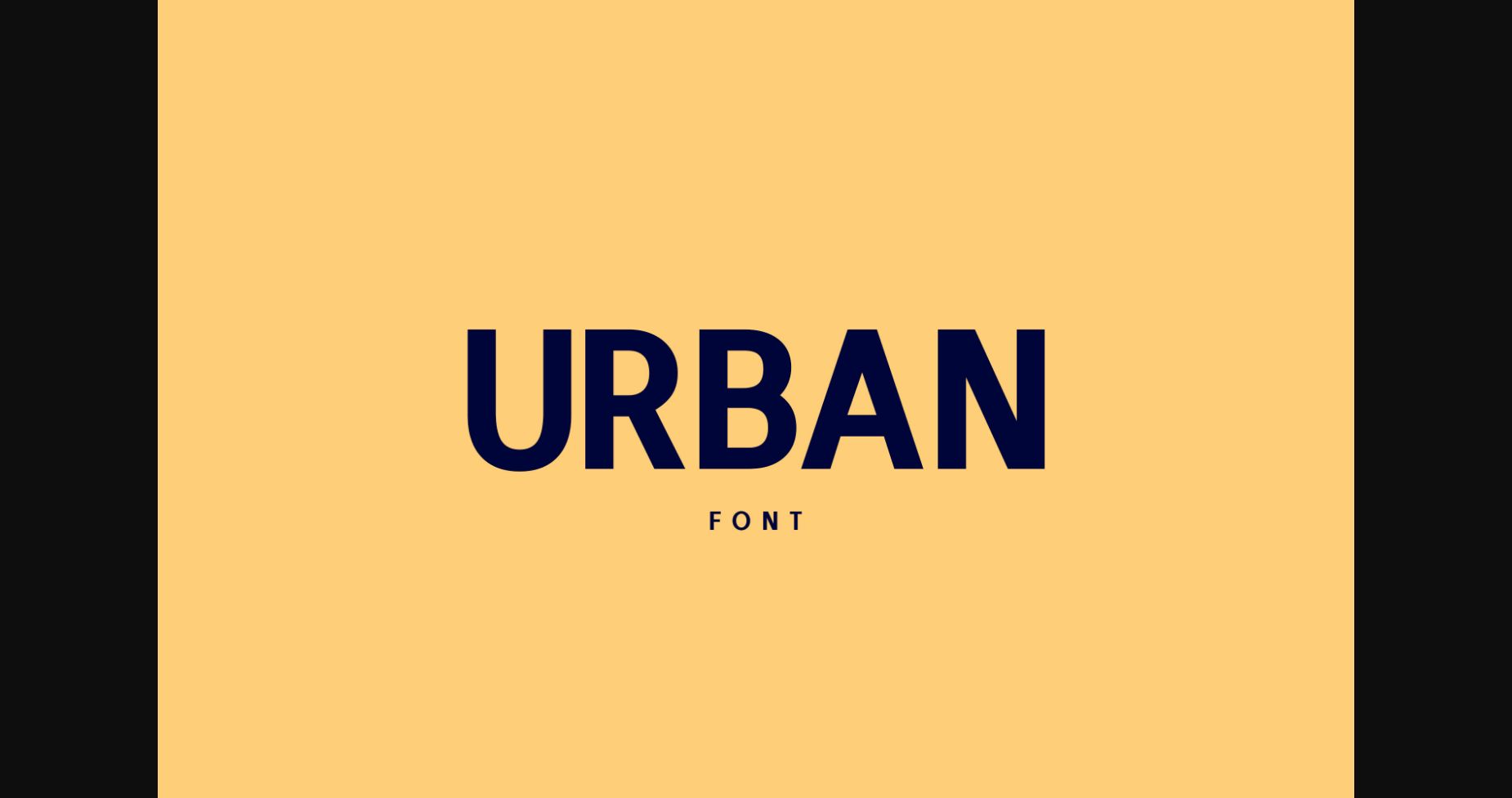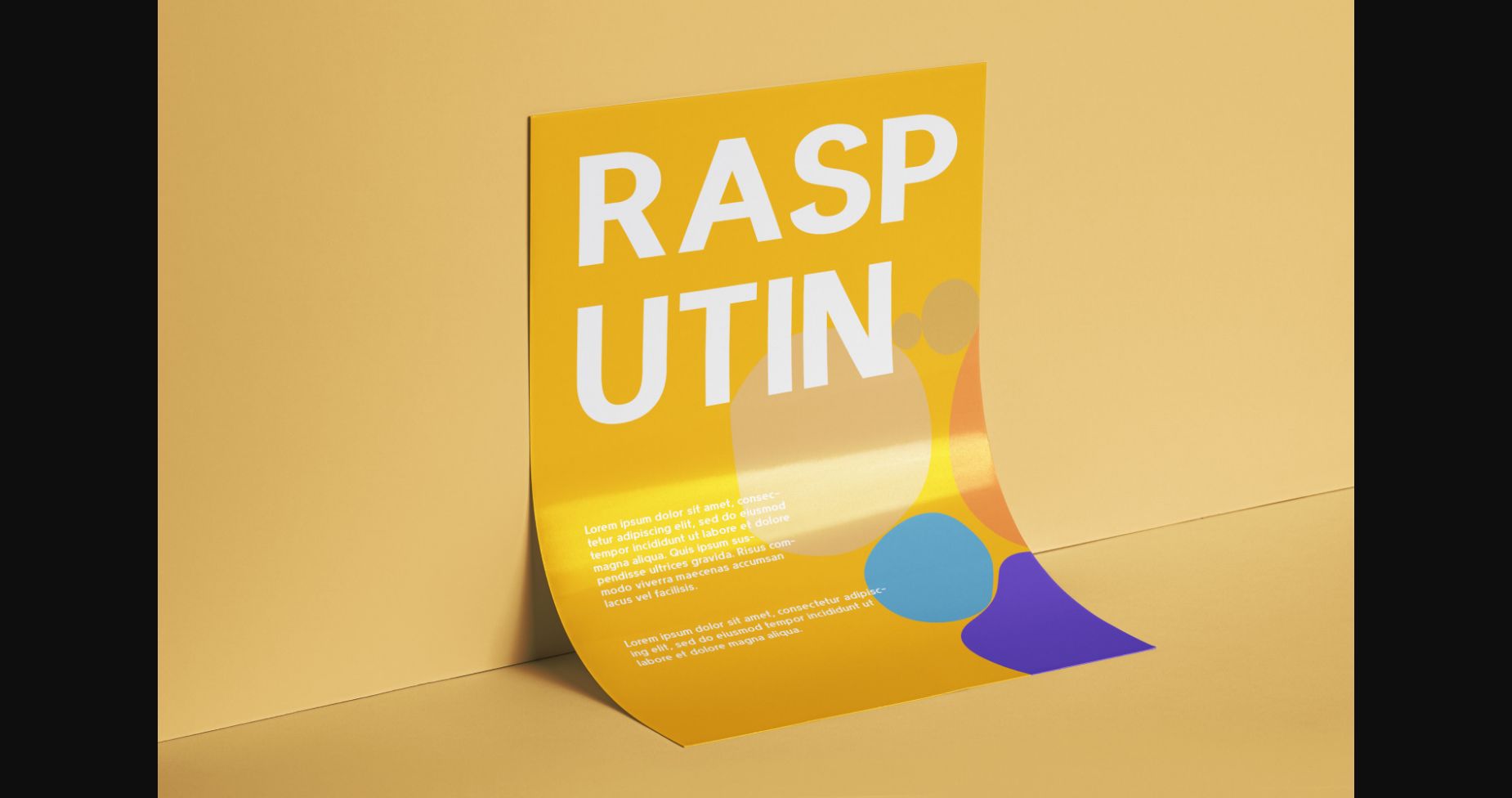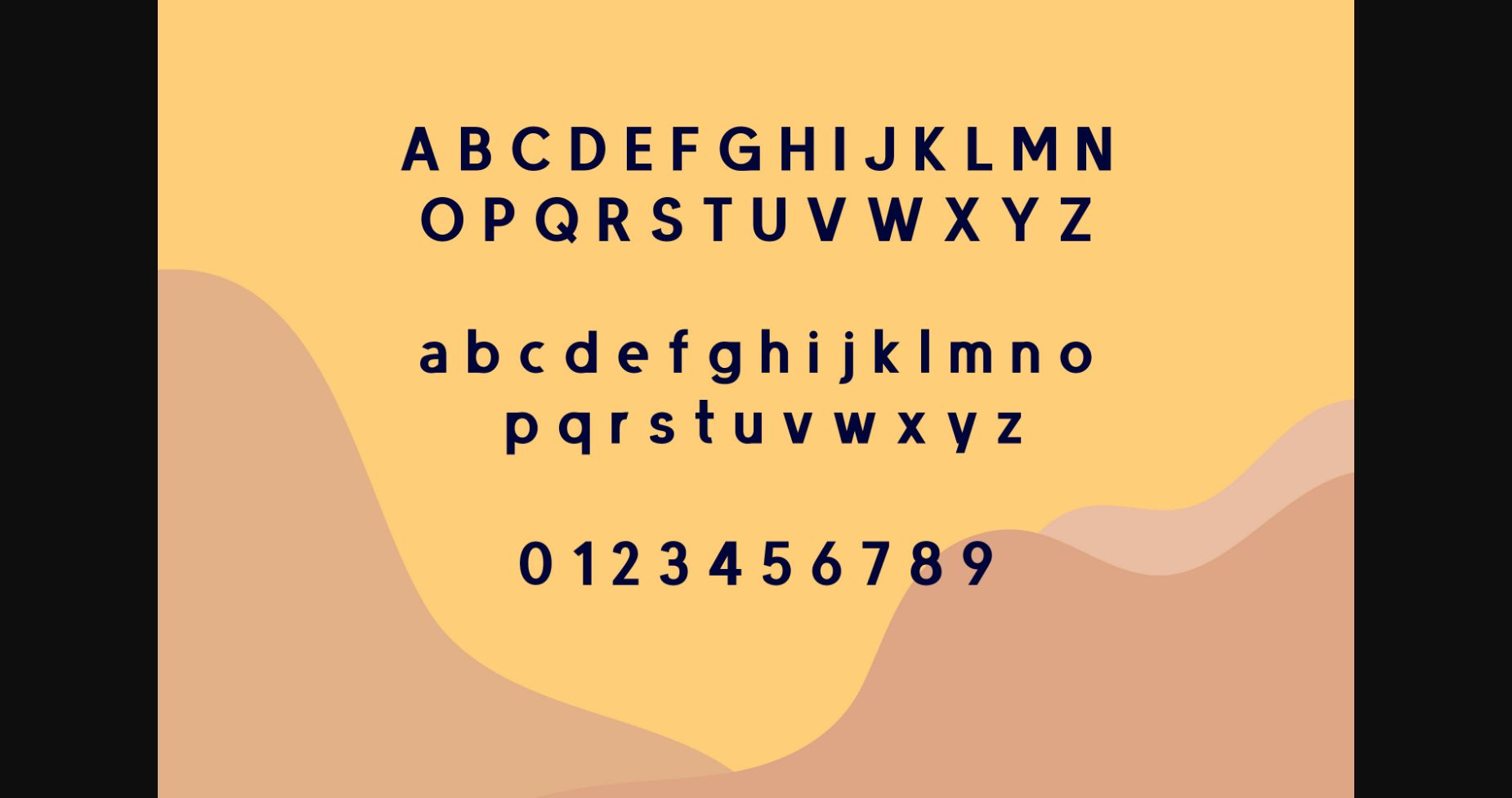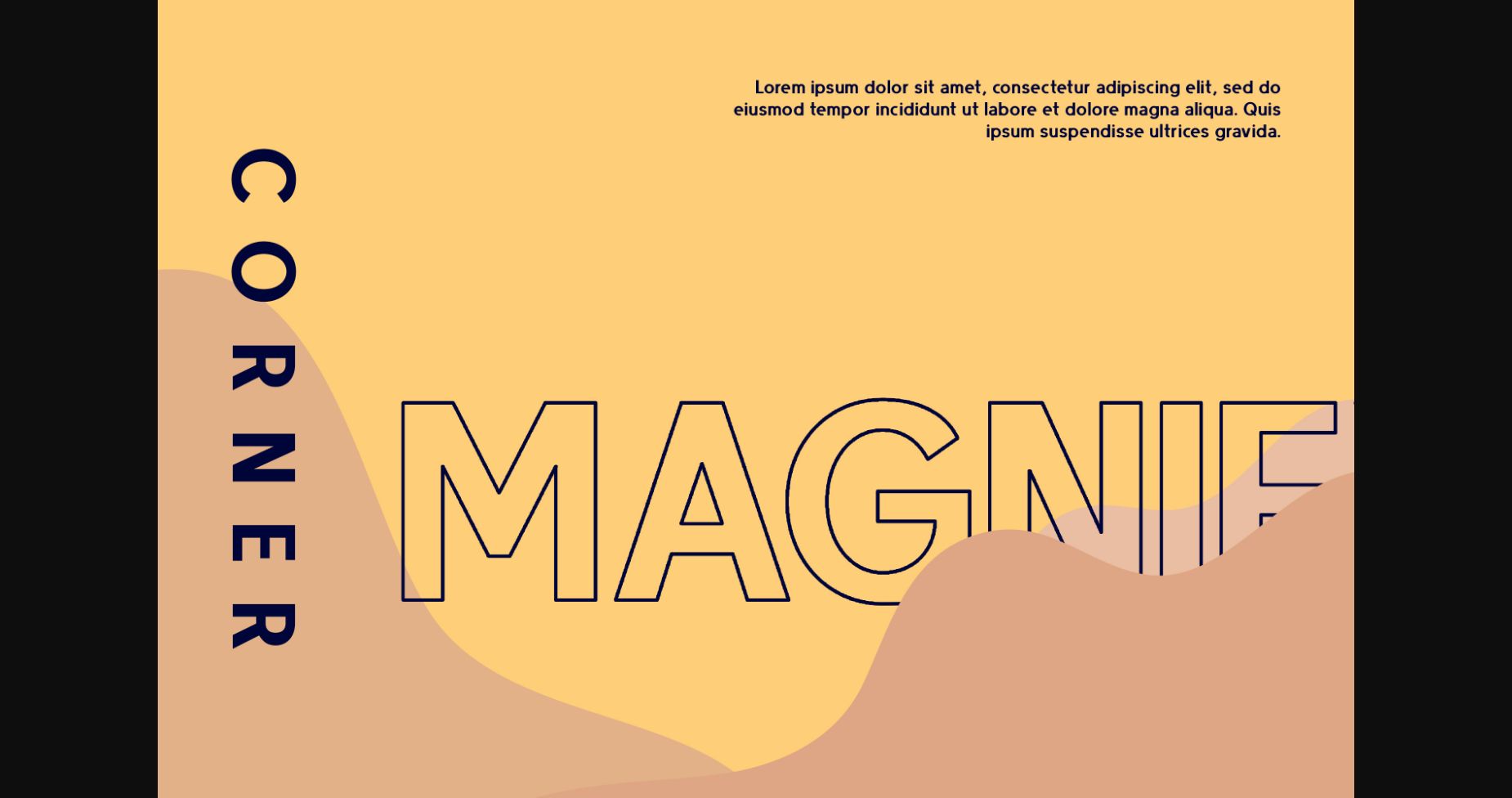
Urban is a modern and minimal sans serif font that will take each of your creations to the highest levels! It’s versatile and cool, and it will look great with every project!